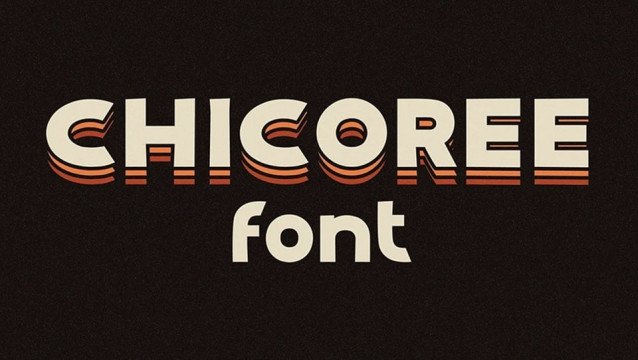
Chicoree Font – a whimsical geometric font with smooth rounded lines and a solid feel — simple, approachable, and incredibly versatile for today’s visual language. It works well on both screen and print, making it great for branding, editorial layouts, UI/UX, and all sorts of creative projects. Friendly yet neutral, this font helps you build clean, modern designs. Currently available in 2 styles.
Chicoree Font
| Designer Name: | Liese Mars |
| Classification: | Branding Fonts, Geometric Fonts, Modern Fonts, Playful / Fun Fonts |